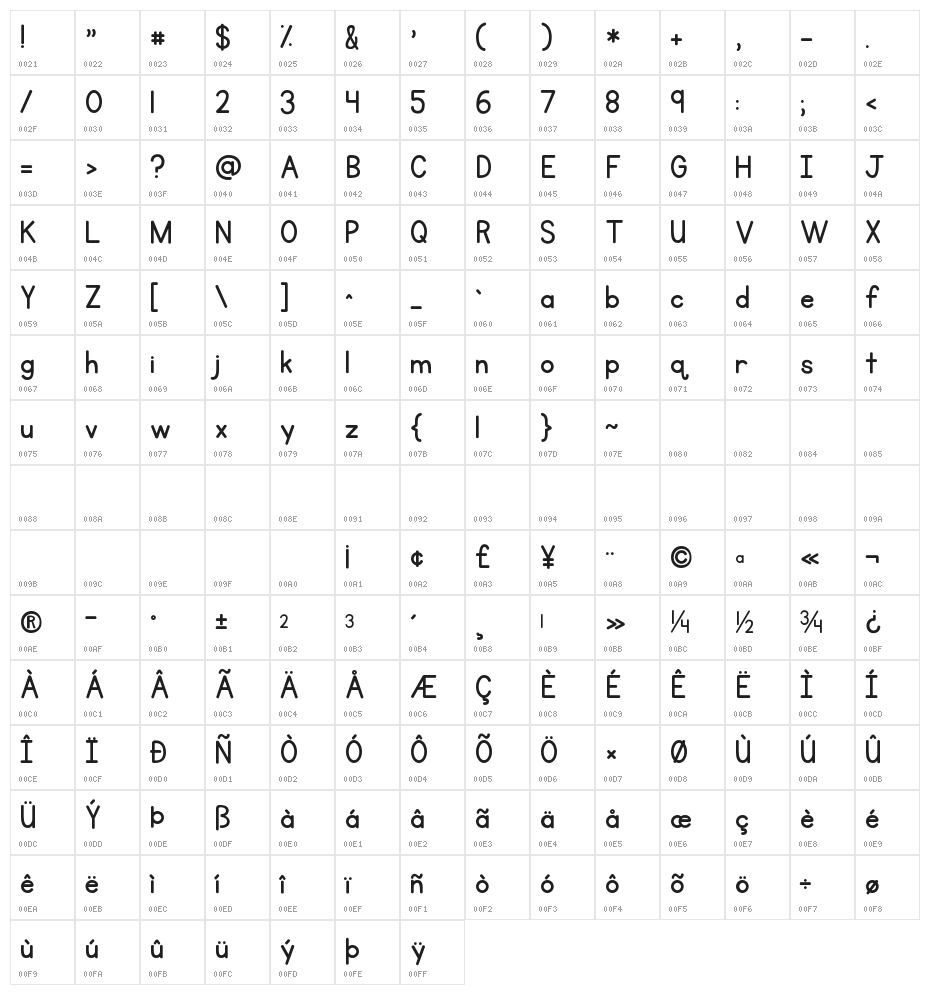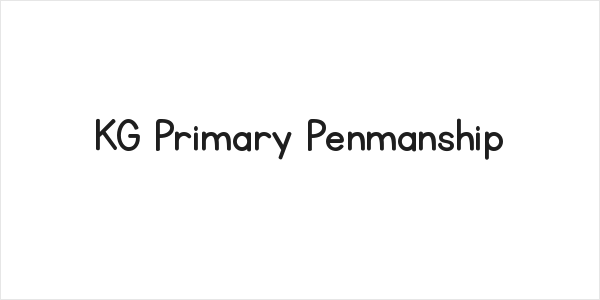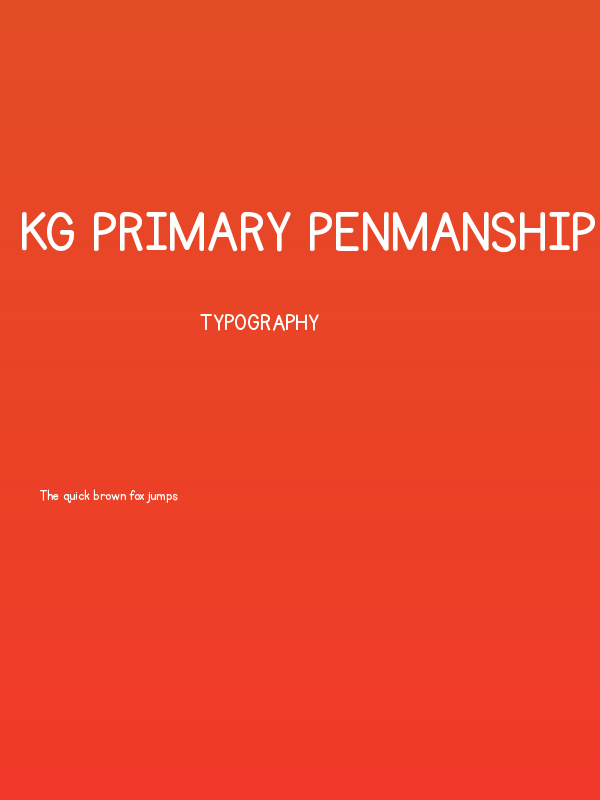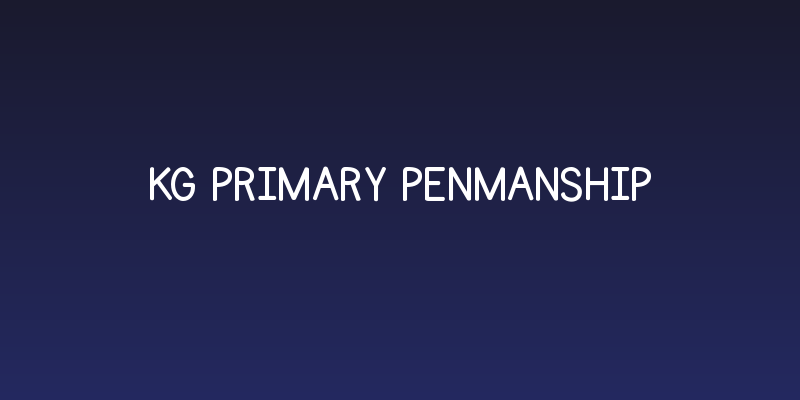
KG Primary Penmanship Font
KG Primary Penmanship Description
This font features a playful and rounded style, reminiscent of handwriting taught in primary schools. The characters are evenly spaced, with a consistent stroke width that gives it a clean and approachable appearance. The rounded edges and simple forms make it highly legible, suitable for educational materials or any project aiming for a friendly and informal tone. The numerals and special characters maintain the same playful aesthetic, ensuring consistency across all text elements.
Overall StylePlayful
Use CaseEducational materials, Children's books, Informal branding
Proposed ProjectsPerfect for children's books, educational materials, school projects, and playful branding.